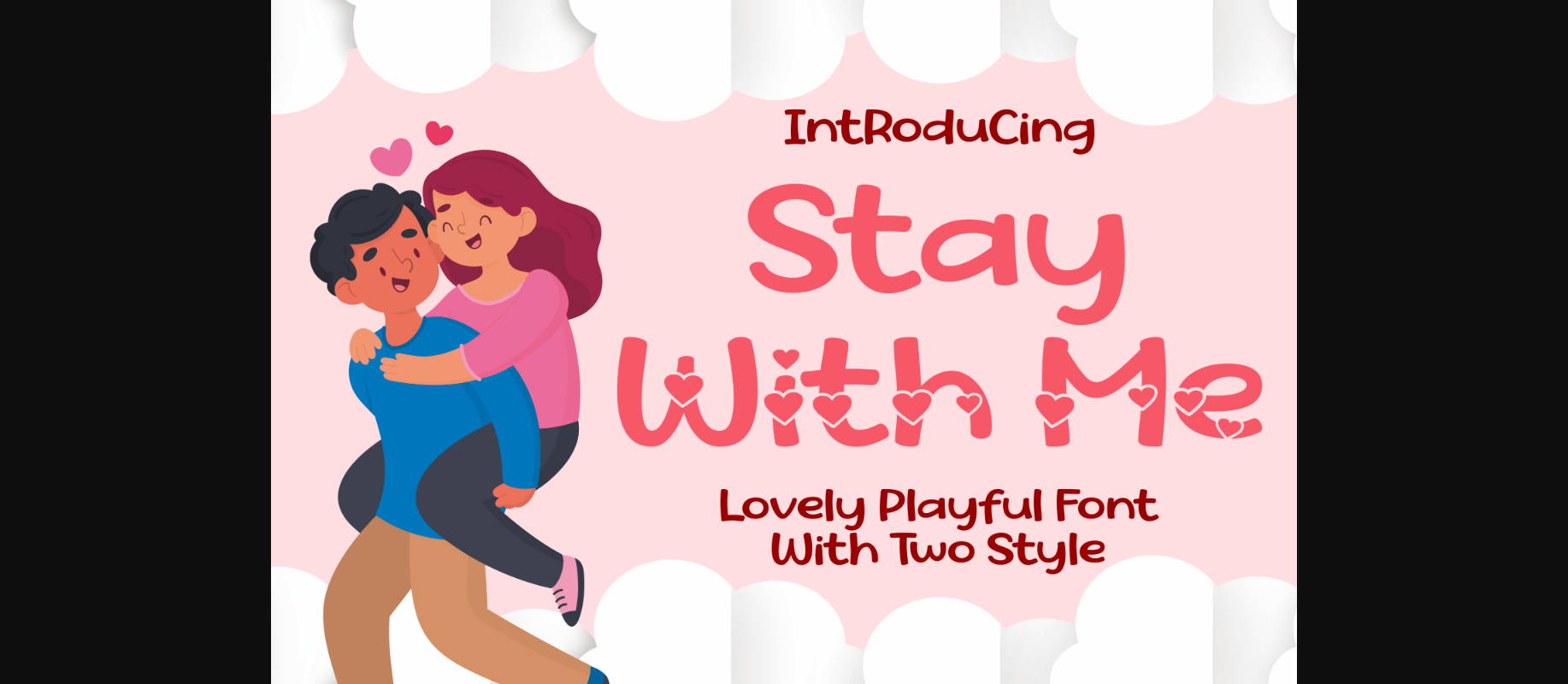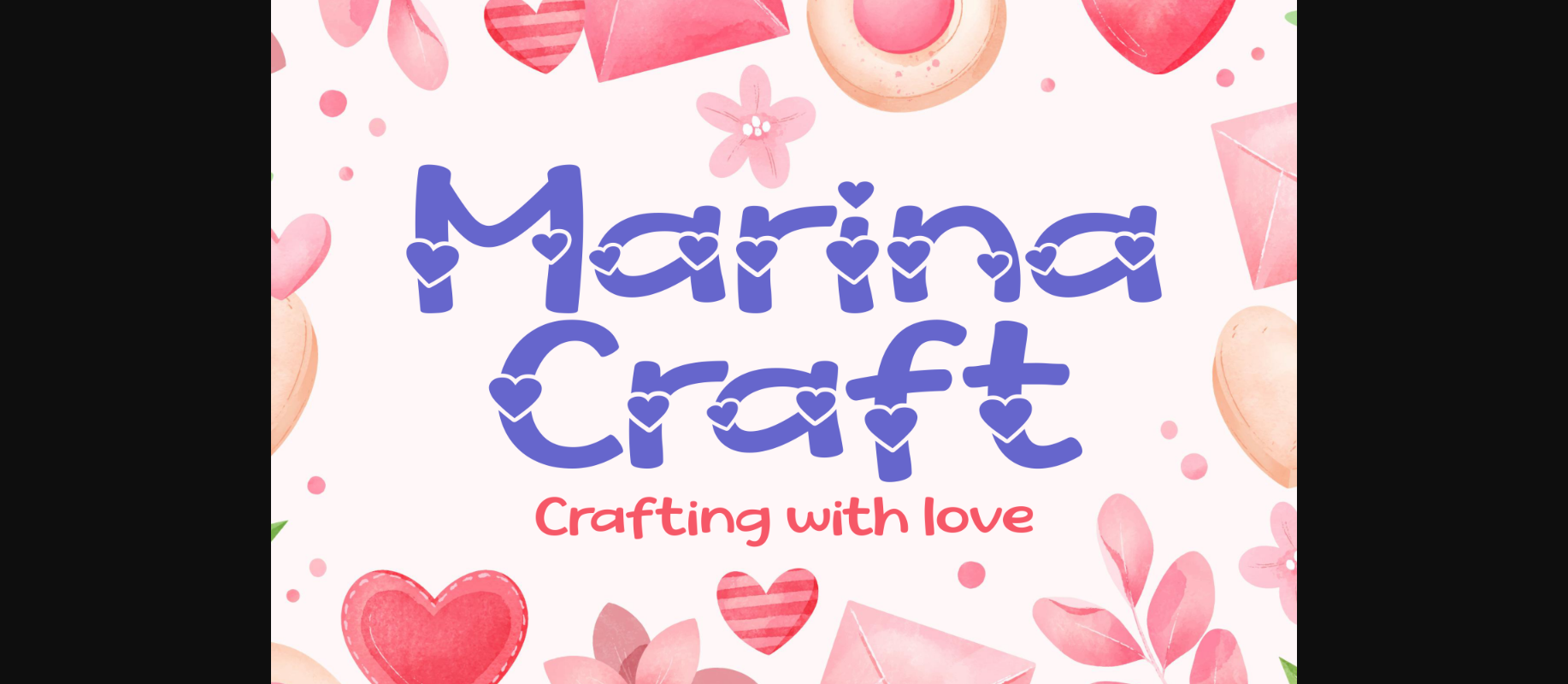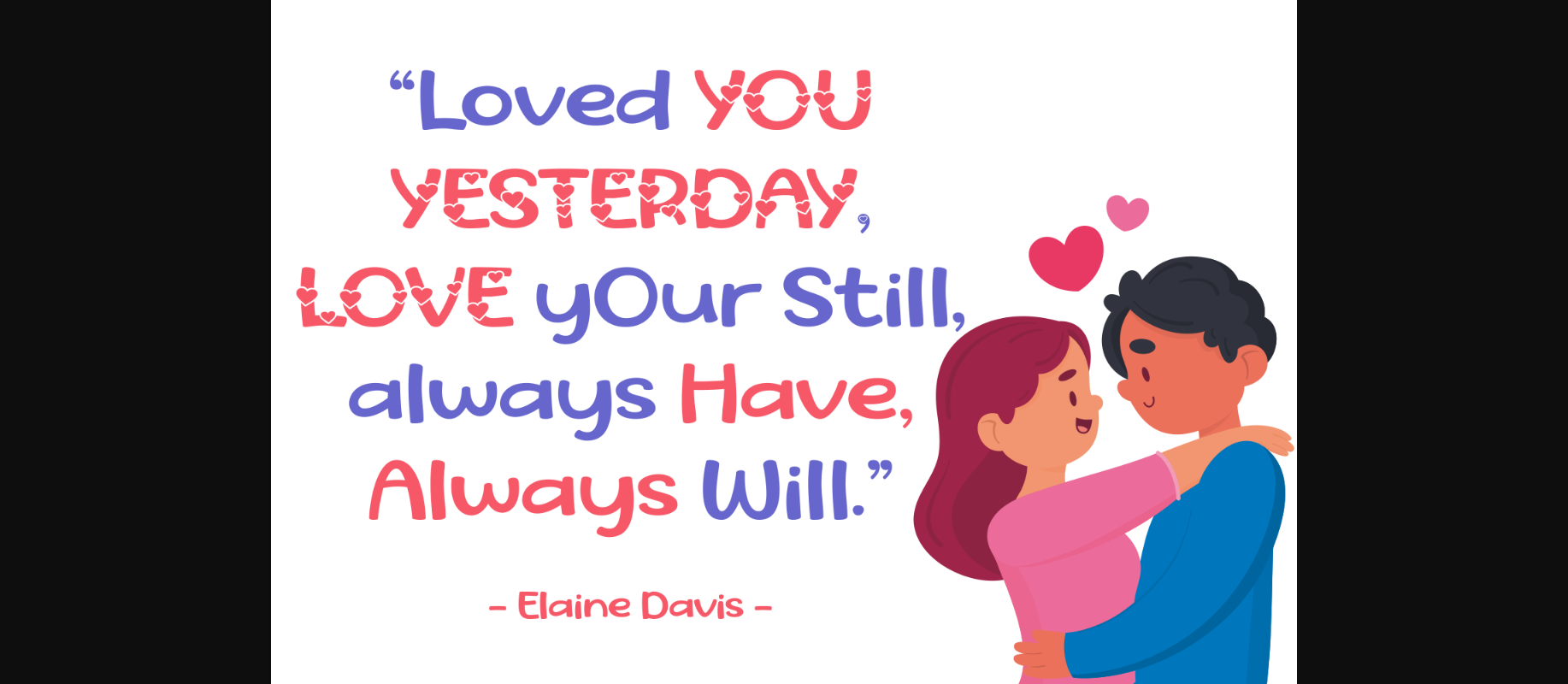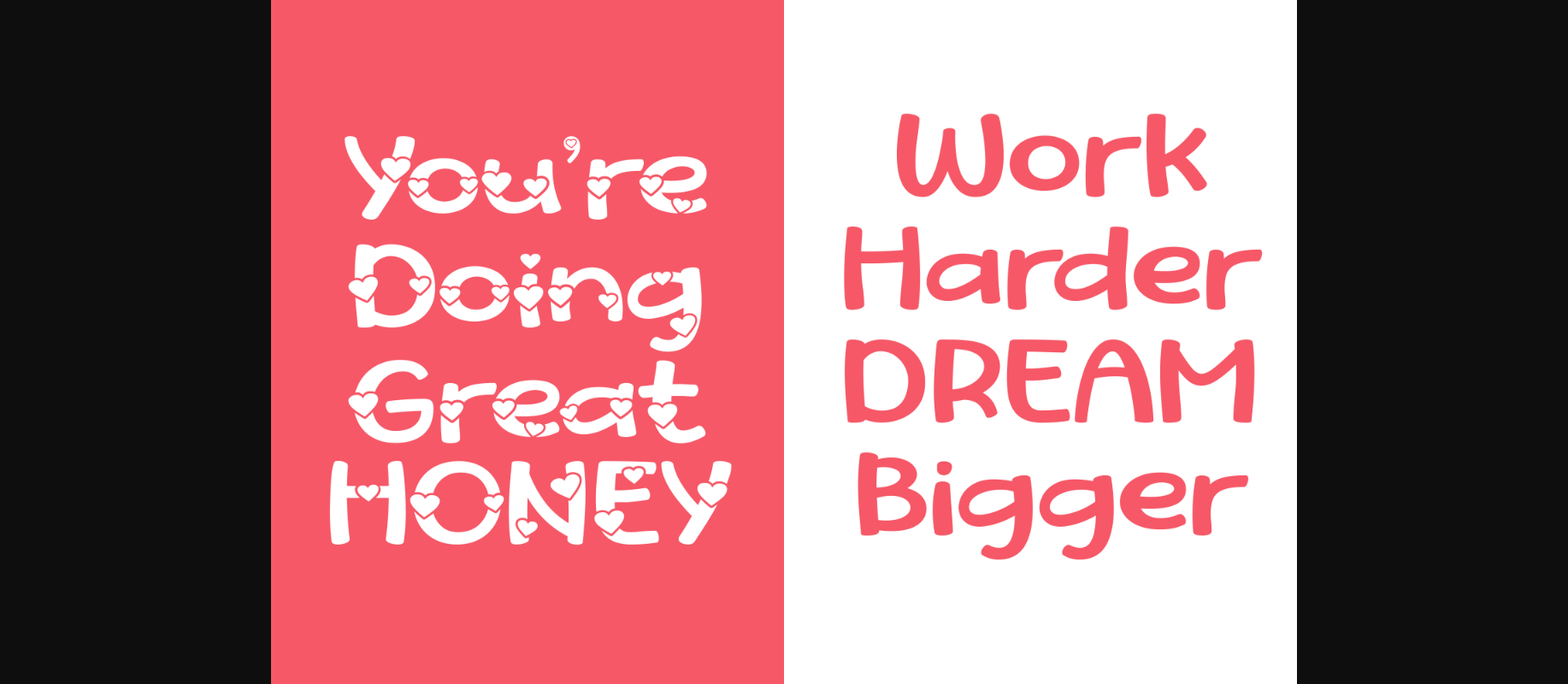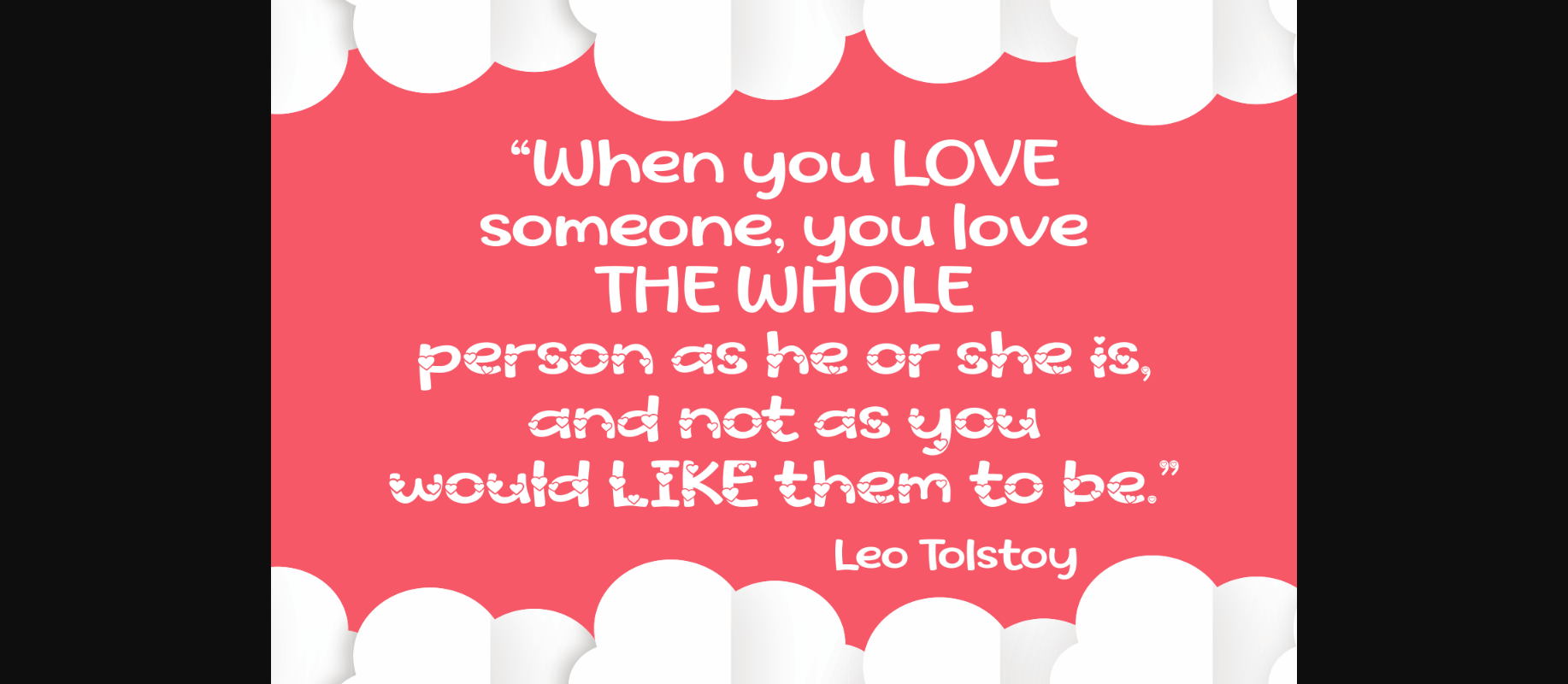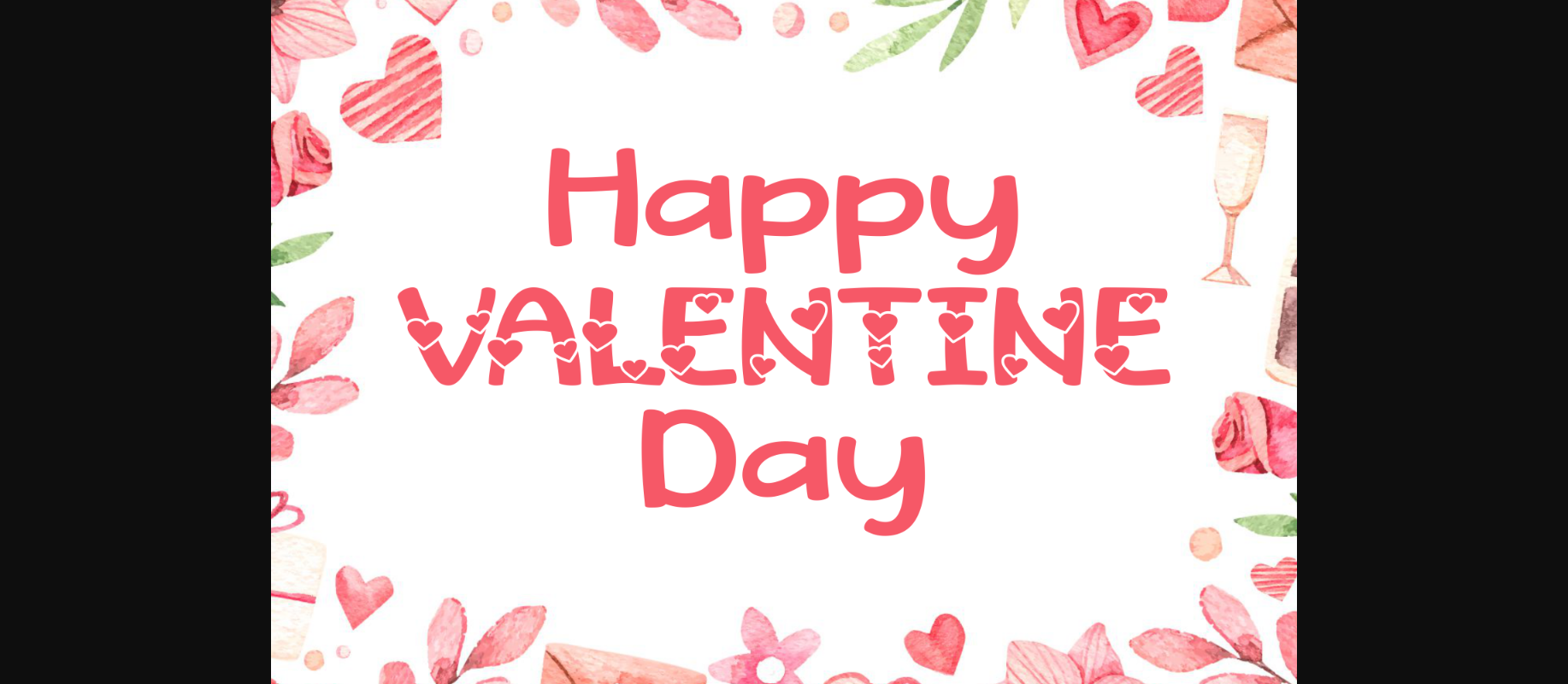
Stay with Me Font
About Stay with Me Font
Stay With Me is a lovely duo font (display and decorative). Whether you’re using it for crafts, digital design, presentations, or making greeting cards, this font has the potential to become your favorite go-to font, no matter the occasion!